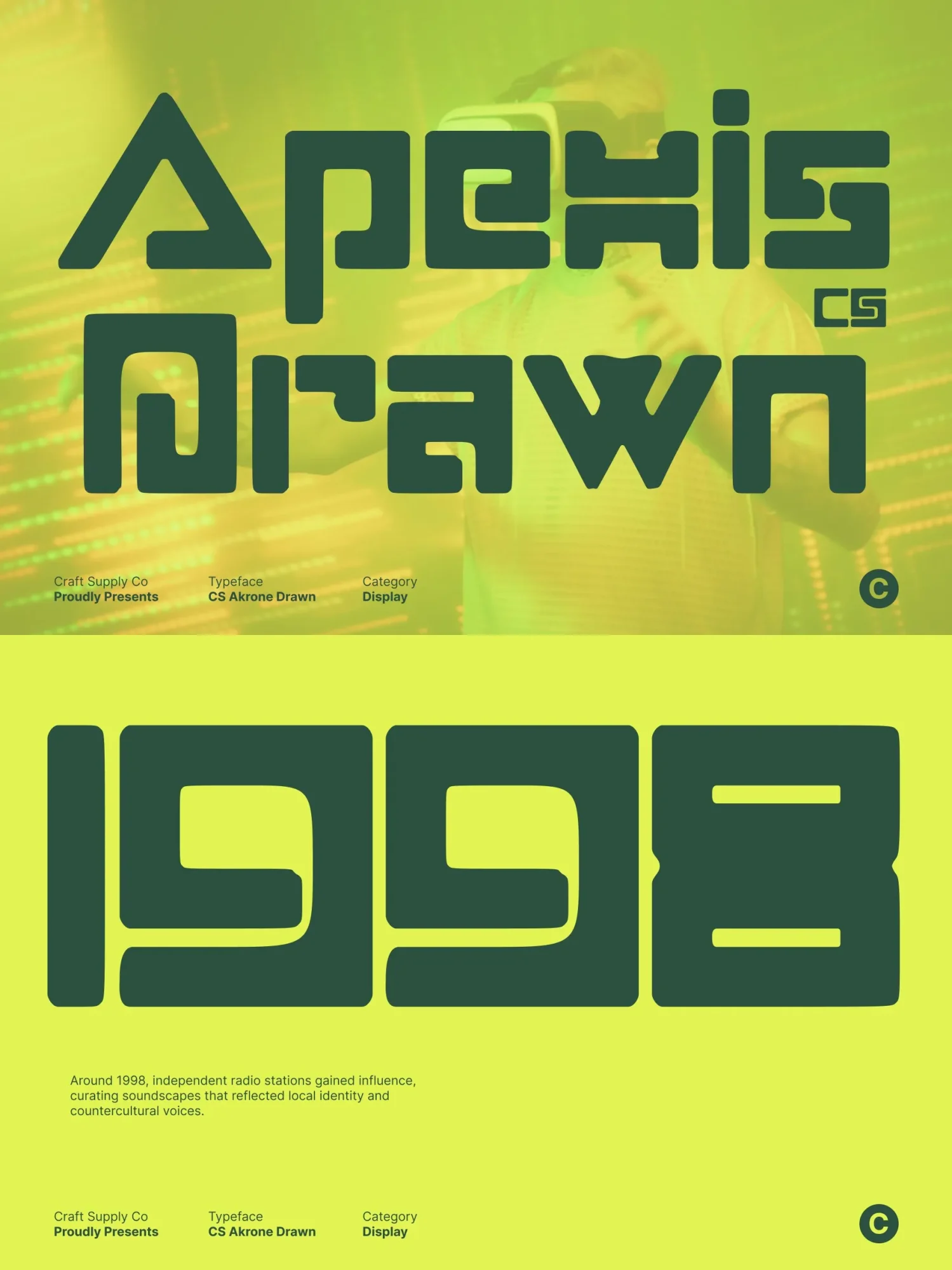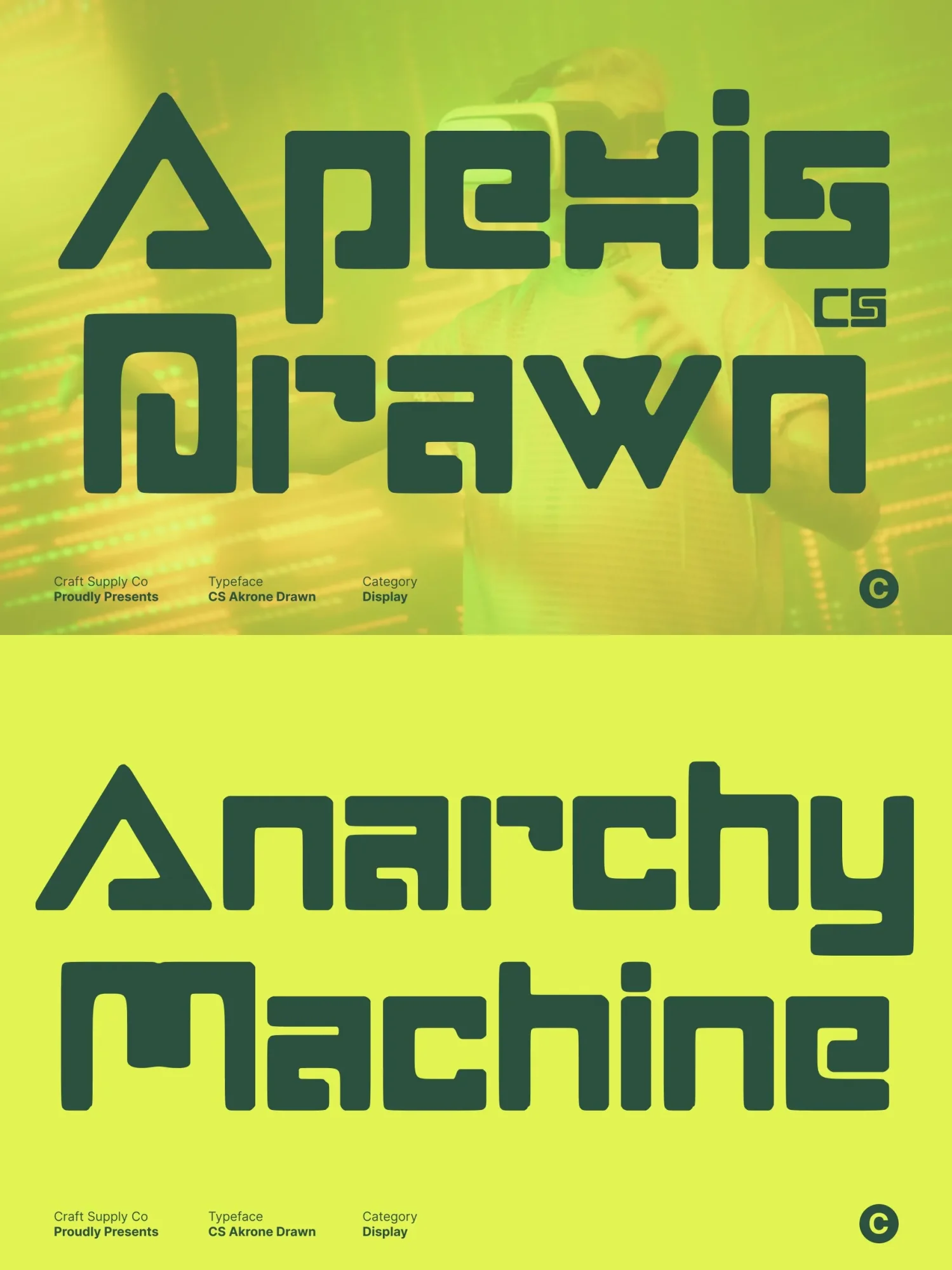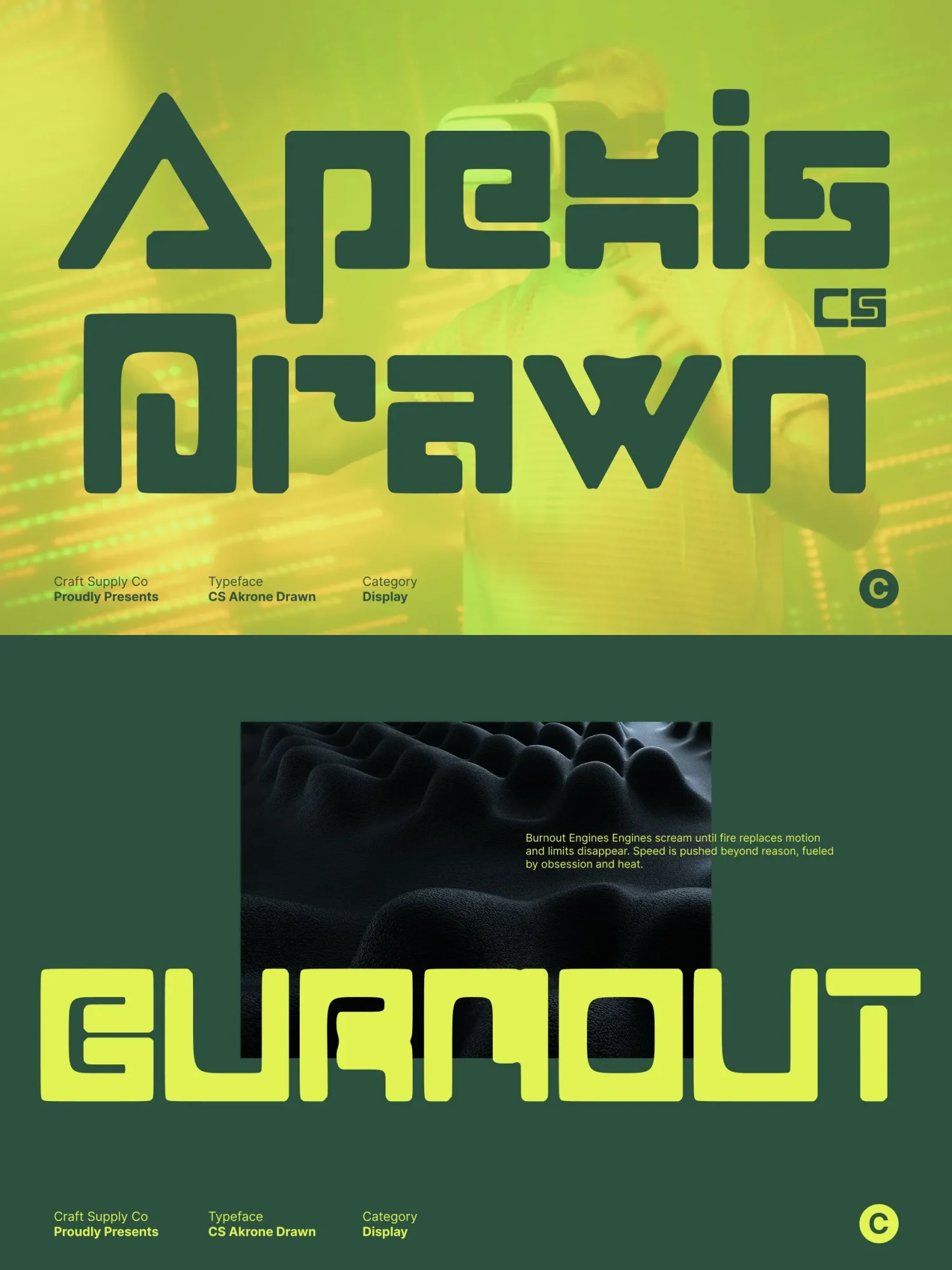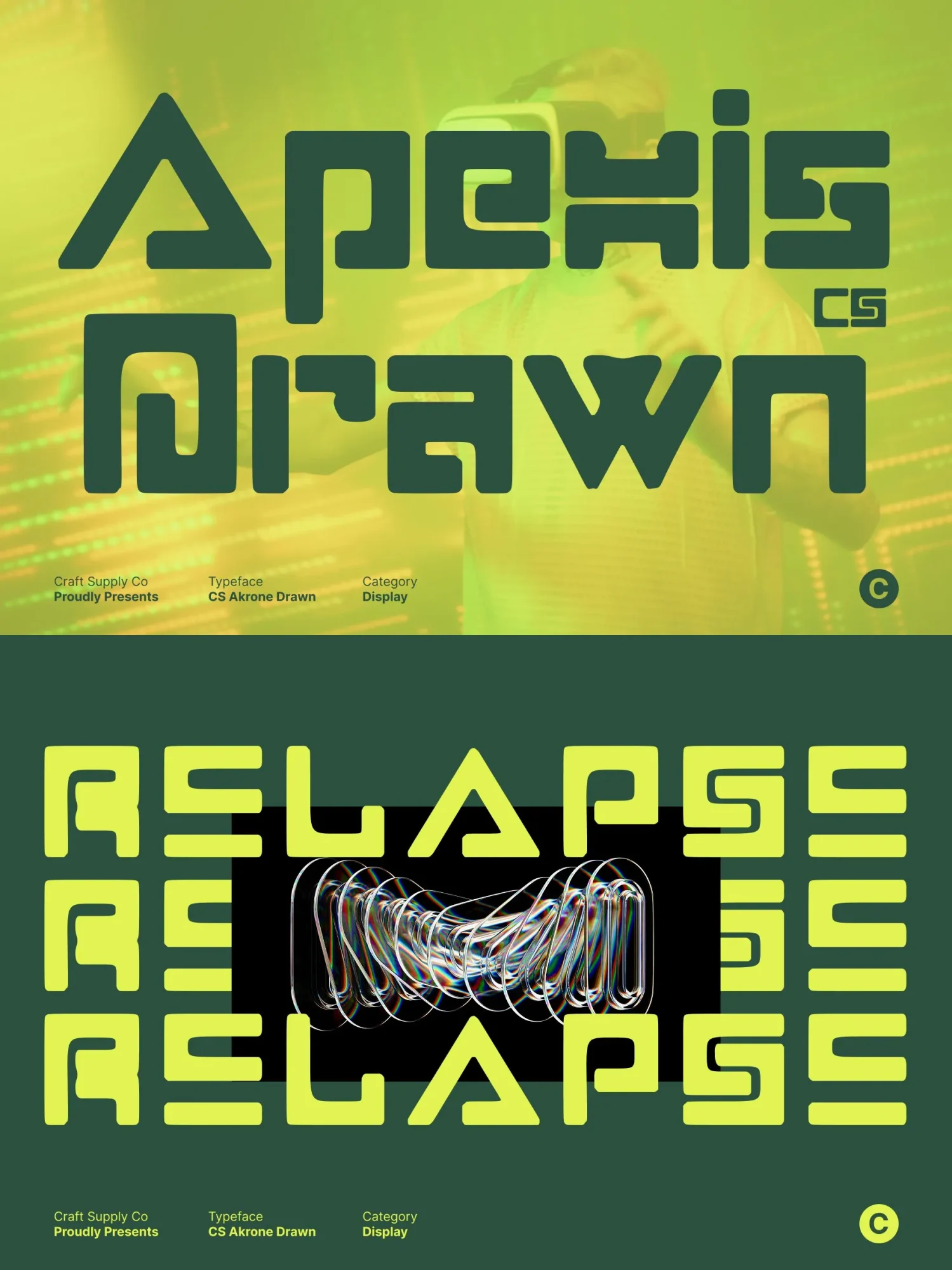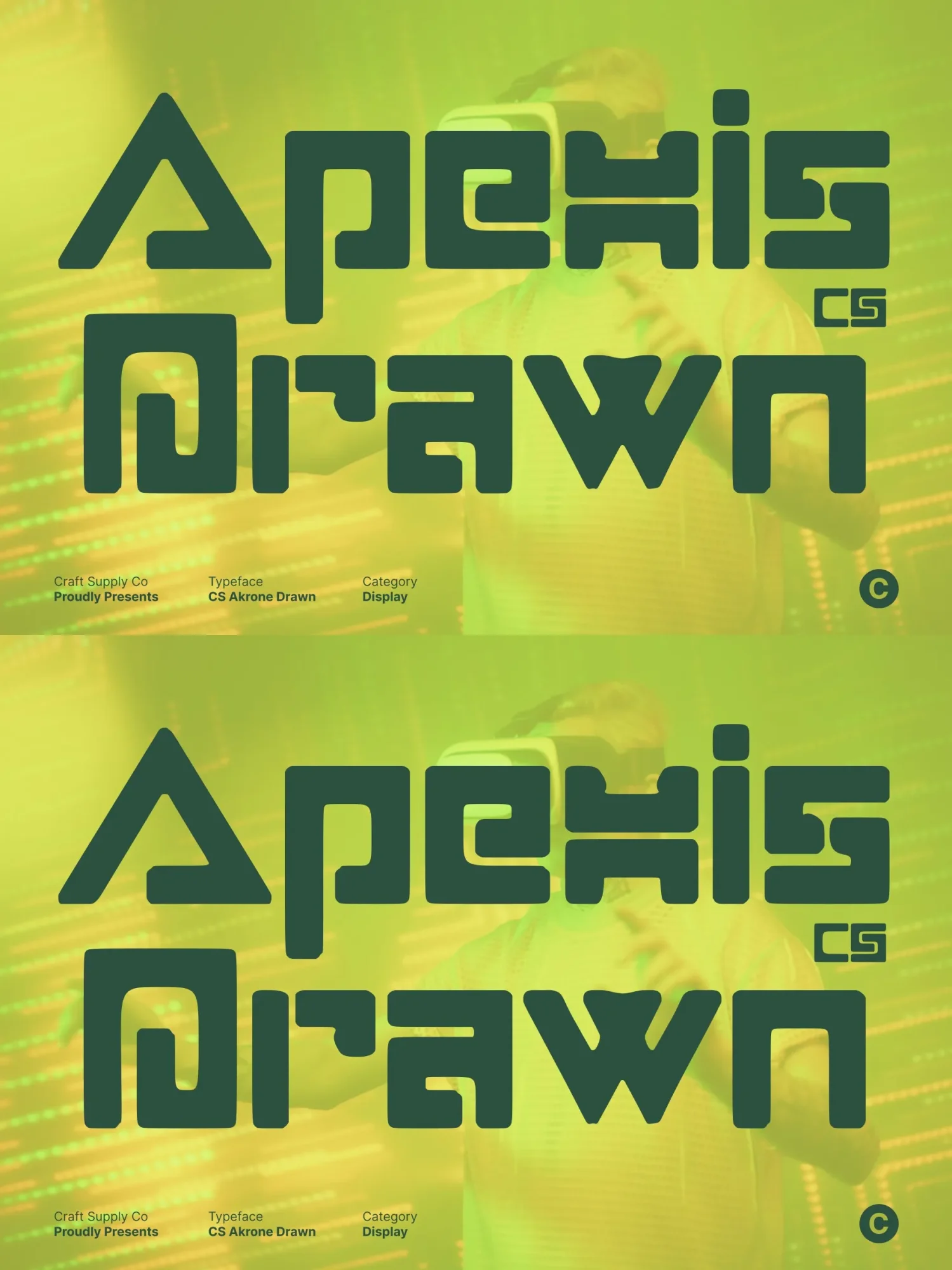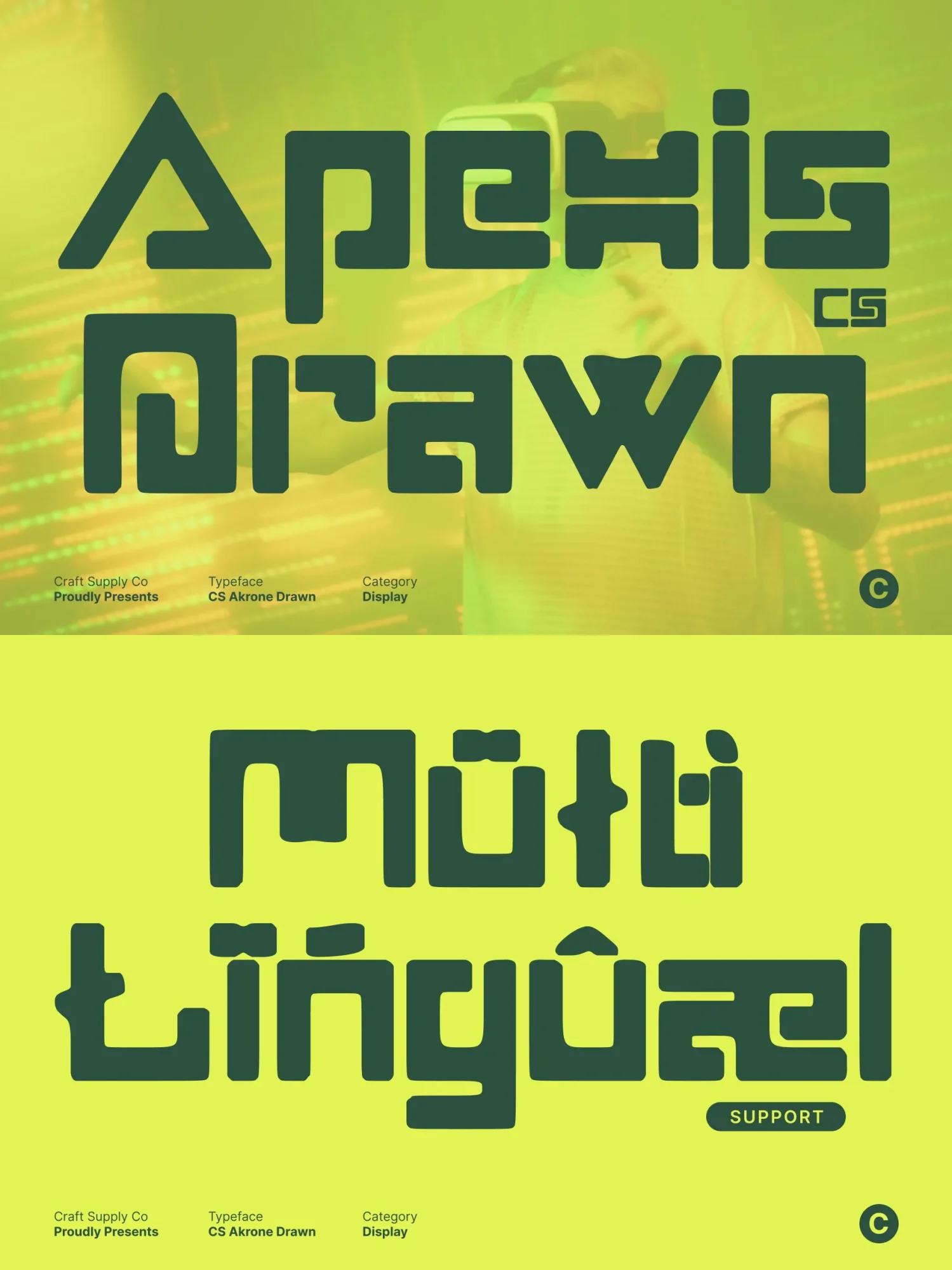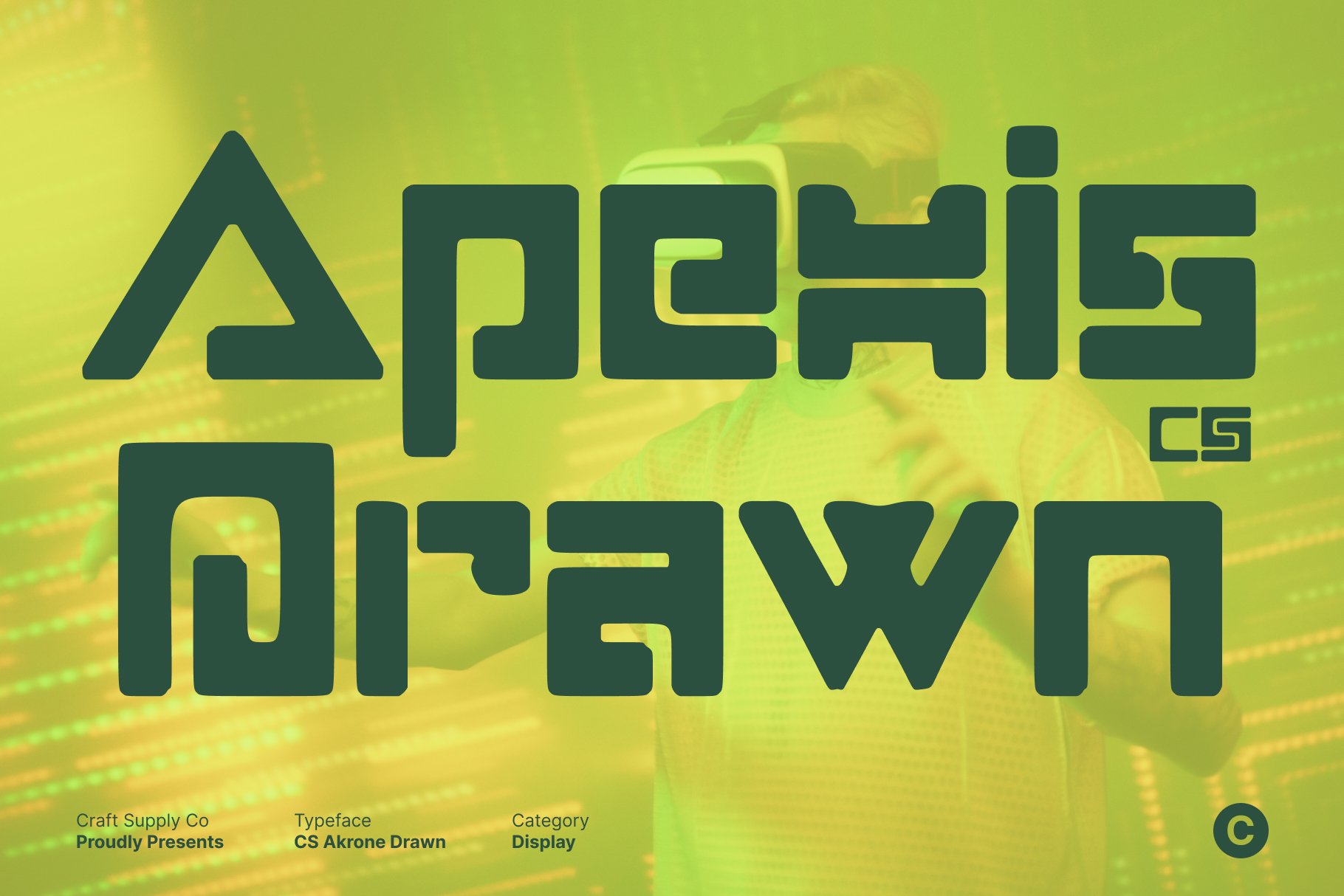
Modern Techno Display Font with Hand-Drawn Character
This is a futuristic display font rooted in industrial brutalism and modern techno aesthetics, enhanced with a distinctive drawn texture. Its clean lines and sharp structures create a bold, forward-looking appearance, while the hand-drawn details add a raw, expressive edge. This combination results in a typeface that feels innovative, technical, and visually alive.
Industrial Brutalist Structure
Inspired by brutalist design principles, this font features solid forms, rigid geometry, and a strong industrial personality. The mechanical structure conveys strength, stability, and functionality, while the drawn effect introduces subtle imperfections that make the font feel more dynamic and human. This balance allows the font to dominate layouts without feeling cold or overly rigid.
Clean Lines with Futuristic Energy
Precision remains at the core of this font. Its well-defined edges and structured letterforms deliver a sleek, futuristic look, while the drawn texture softens the geometry just enough to create visual interest. The result is a font that stays clear and readable while projecting a high-tech, modern mood.
Designed to Push Creative Boundaries
Built for bold and experimental projects, this font is perfect for technology branding, sci-fi visuals, gaming titles, posters, digital interfaces, and cutting-edge layouts. With its blend of industrial power, modern techno style, and expressive drawn character, it transforms typography into a strong statement of futuristic creativity.